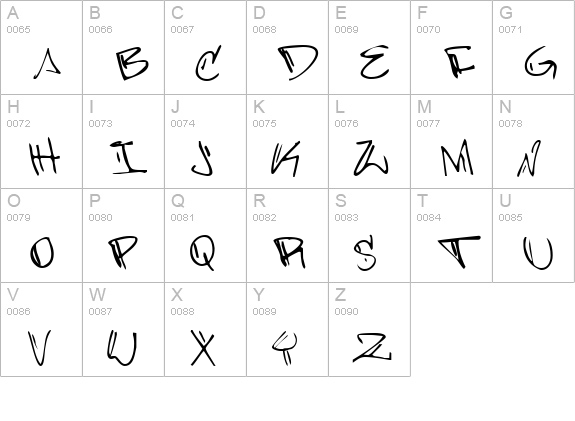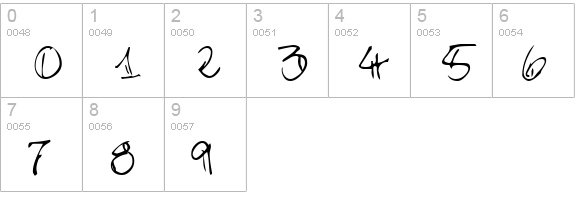
Barrakuda'z FontZamba Font Details
Barrakuda'z FontZamba font is a stunning display typeface that exudes a unique blend of modernity and creativity. With its bold and eye-catching design, this font is perfect for making a statement in various design projects. The sharp edges and intricate details of Barrakuda'z FontZamba font make it a versatile choice for logos, branding, posters, and more. What sets this font apart is that it is freely available to download at FontsMarket.com. Whether you're a designer looking to add a touch of flair to your creations or a business owner in need of a standout font for your marketing materials, Barrakuda'z FontZamba font is sure to impress. Embrace the boldness and originality of this font and take your designs to the next level.